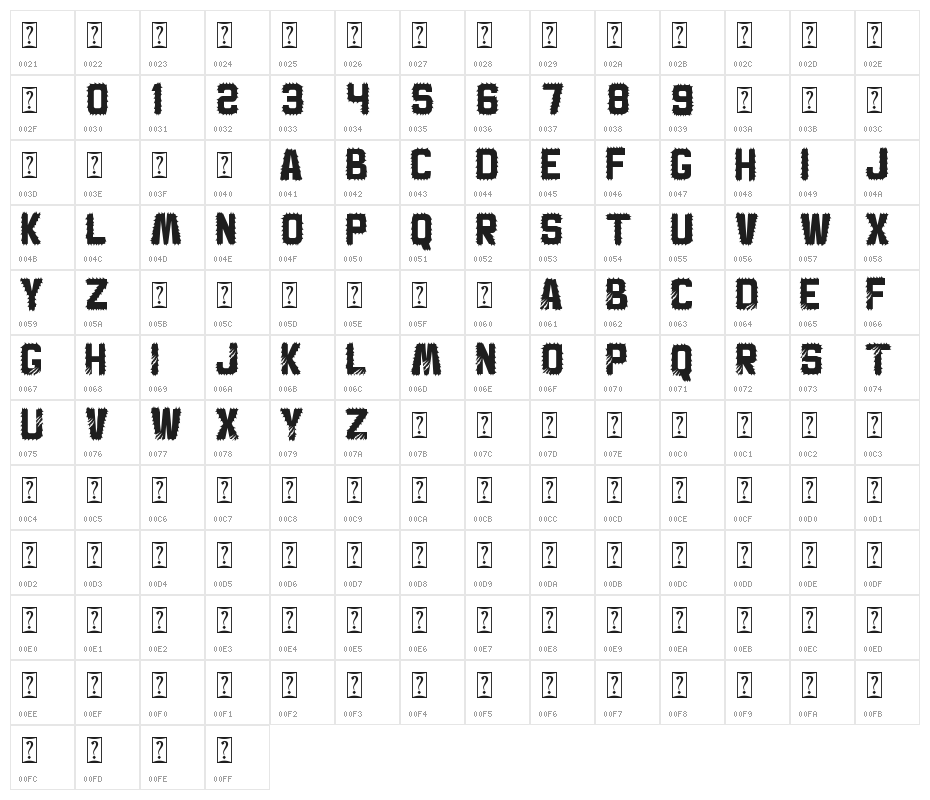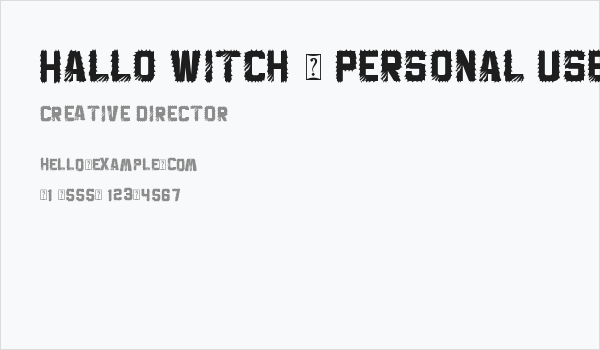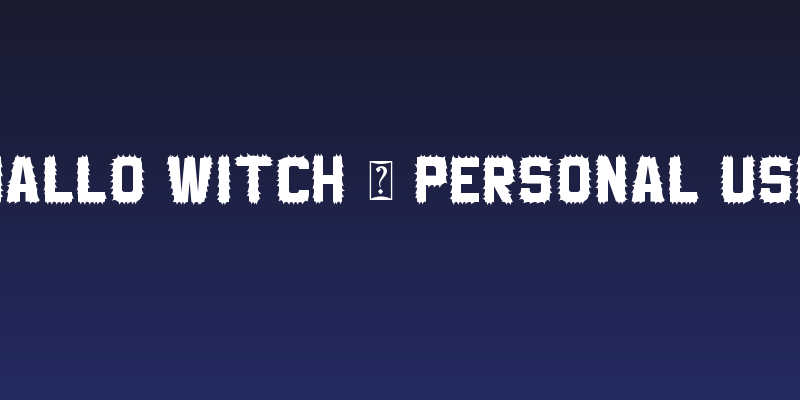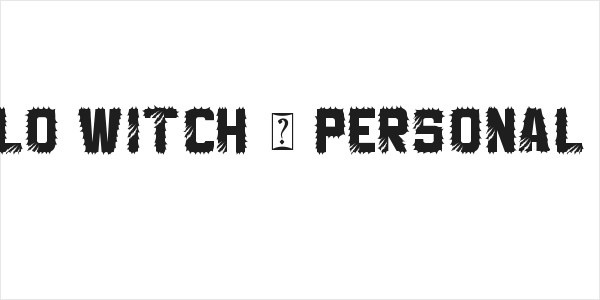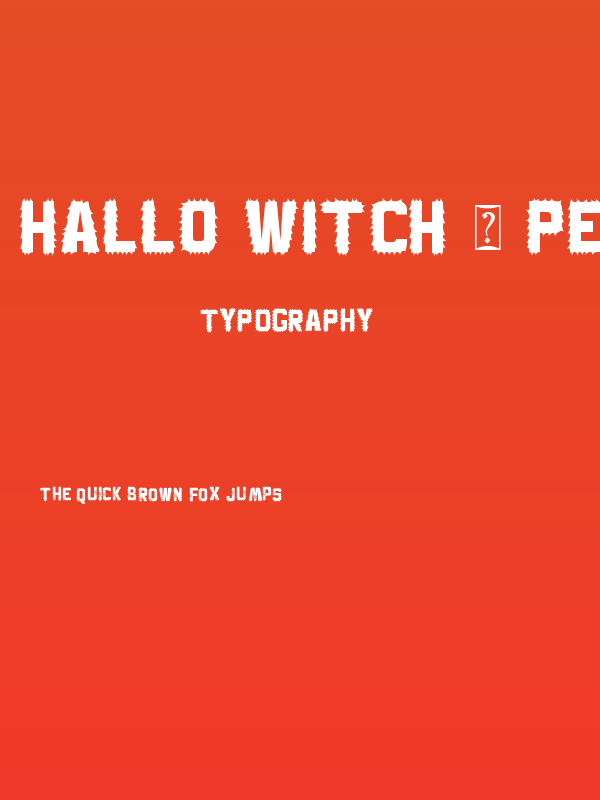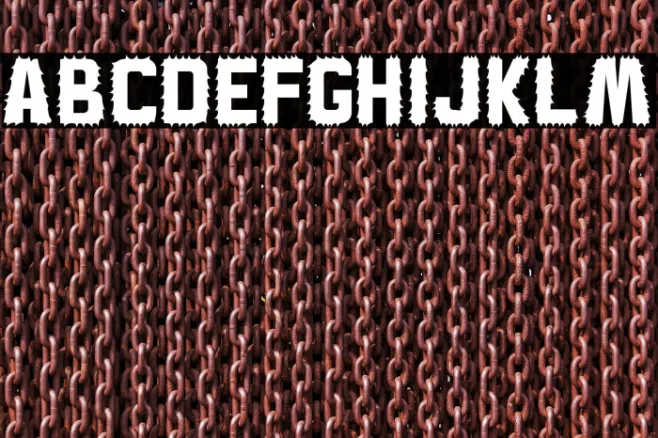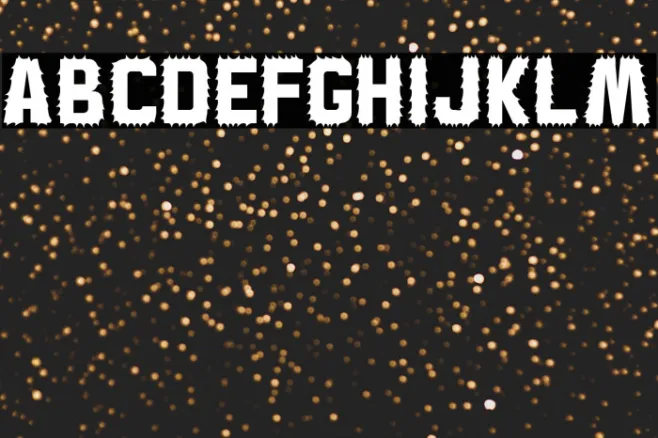
Hallo Witch - Personal Use Font
Hallo Witch - Personal Use Description
This font features a bold and jagged design, reminiscent of sharp, thorny edges. Each character is crafted with a unique, spiky outline that gives it a dynamic and edgy appearance. The uppercase letters are particularly striking, with their bold forms accentuated by the irregular, serrated edges. The numbers and special characters follow the same design principle, ensuring consistency across the font. This style evokes a sense of mystery and intensity, making it ideal for themes related to Halloween or horror. The font's distinctive look is both eye-catching and memorable, perfect for creating a dramatic impact.
| Proposed Projects | This font is perfect for Halloween-themed posters, horror movie titles, spooky event invitations, and themed merchandise. |